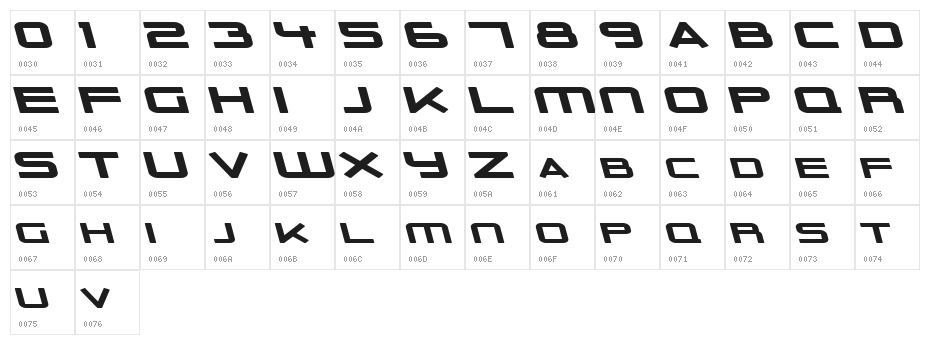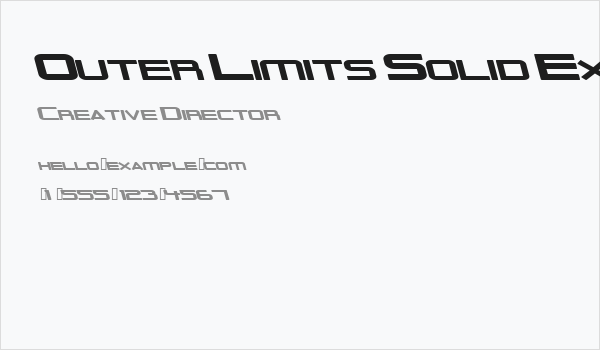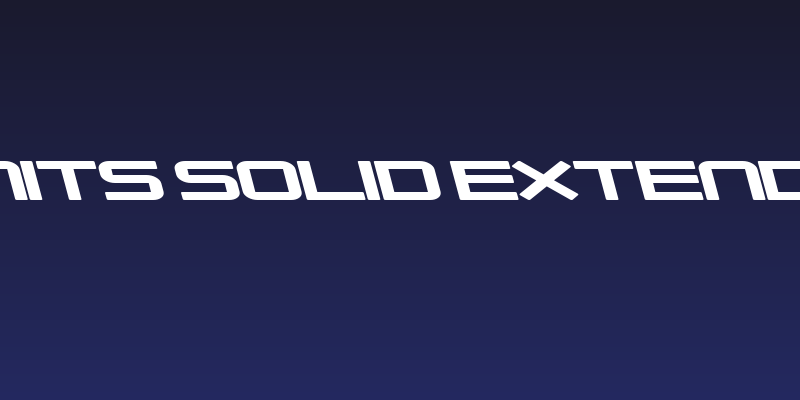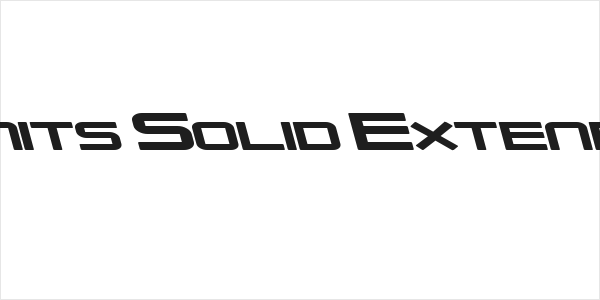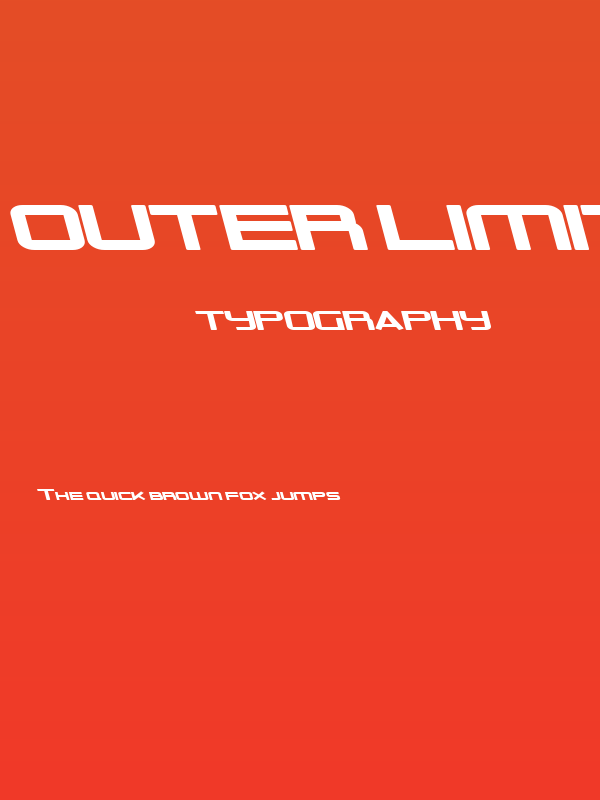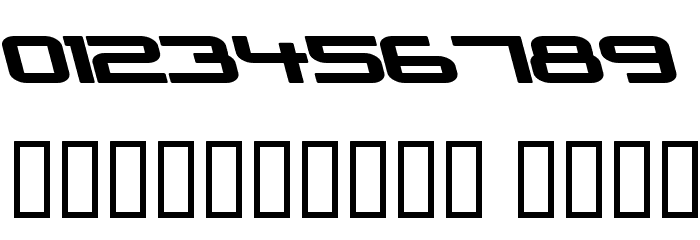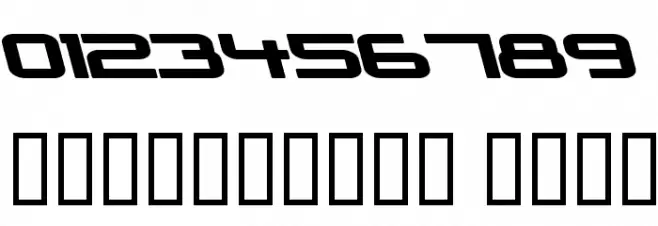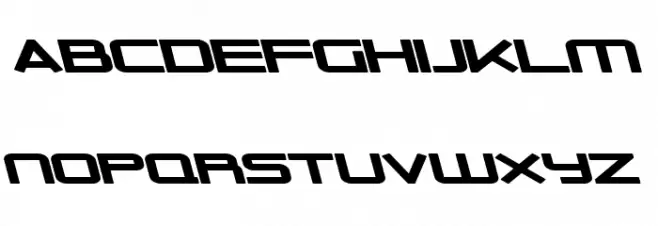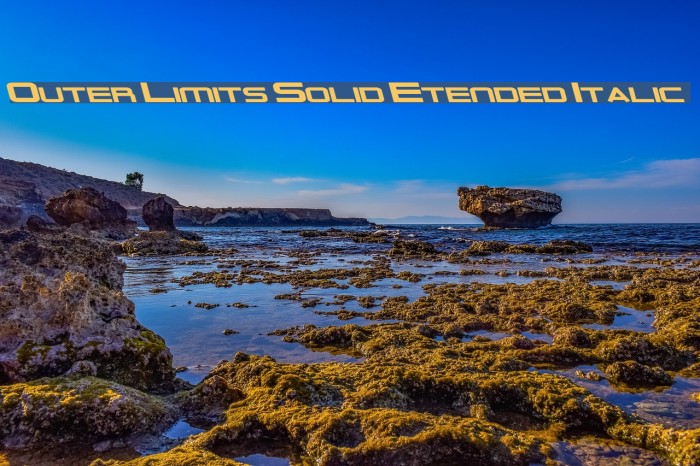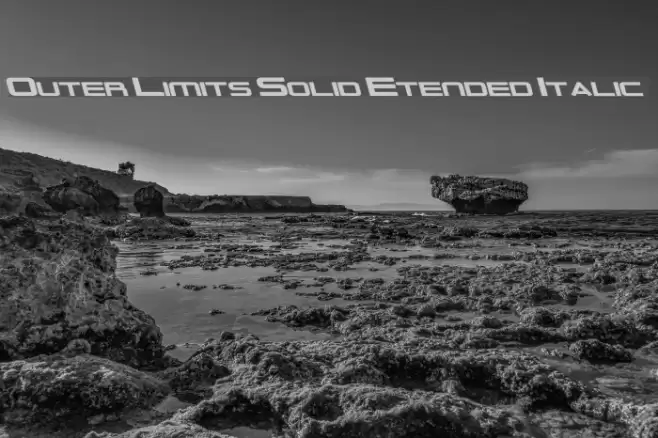
Outer Limits Solid Extended Italic Font
Outer Limits Solid Extended Italic Description
This font features a futuristic and dynamic style with extended and italicized characters. The bold, angular design gives it a strong presence, making it ideal for attention-grabbing headlines. The characters are uniformly wide, with a consistent stroke thickness that adds to its modern appeal. The geometric shapes and sharp edges contribute to its sci-fi aesthetic, while the italic slant adds a sense of motion and speed. The font's extended width and solid construction make it stand out, suitable for projects that require a bold and impactful visual statement.
| Proposed Projects | Ideal for sci-fi movie posters, video game titles, technology branding, and futuristic-themed designs. |